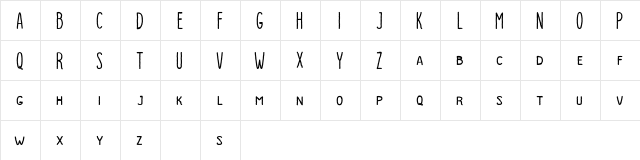
Dutchy Free Rough
| Style | Rough |
| Foundry | Craft Supply Co |
Design Context for Dutchy Free Typeface
Dutchy Free embraces imperfection — its rough, textured character adds raw authenticity to designs that want to feel lived-in and unconventional.
Suited to punk-influenced zines, underground music branding, streetwear, and raw, anti-corporate design.
Pro Tip: Pair Dutchy Free with intentionally raw or lo-fi design elements. Fighting against it with overly polished surroundings will undermine its personality.